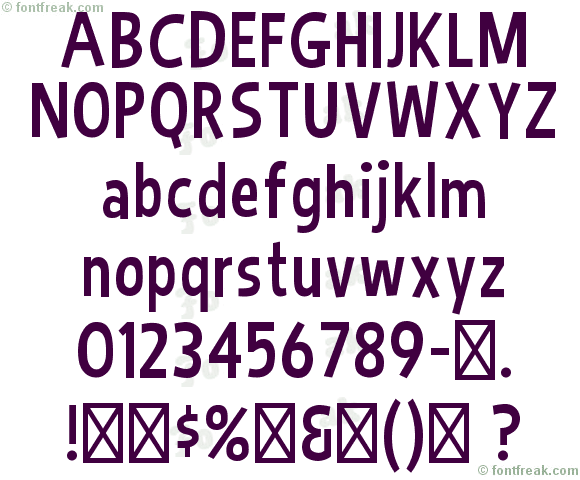
Bimbo JVE
Bimbo JVE is a striking display font designed by Jayvee Enaguas, showcasing a unique blend of contemporary flair and playful energy. This font falls into the display category, making it perfect for eye-catching designs that require a bold statement. With its standout characteristics, Bimbo JVE features rounded forms and a slightly condensed appearance, contributing to its modern aesthetic. The stroke weight is consistent throughout, providing a sense of uniformity, while the well-balanced spacing enhances readability, even at larger sizes.
The versatility of Bimbo JVE makes it an excellent choice for a variety of design applications. It shines in contexts such as wedding invitations, where its playful yet elegant style can set a joyful tone. Additionally, it works beautifully for movie posters, where the need for attention-grabbing typography is paramount. Restaurant menus can also benefit from Bimbo JVE, adding a touch of whimsy and inviting patrons to explore the offerings. Content creators and social media marketers will find this font ideal for crafting engaging graphics that stand out in crowded feeds.
What sets Bimbo JVE apart is its ability to combine fun and functionality, making it a go-to choice for a range of creative endeavors. Its unique character not only draws attention but also leaves a lasting impression, ensuring that designs using this font will resonate with audiences.